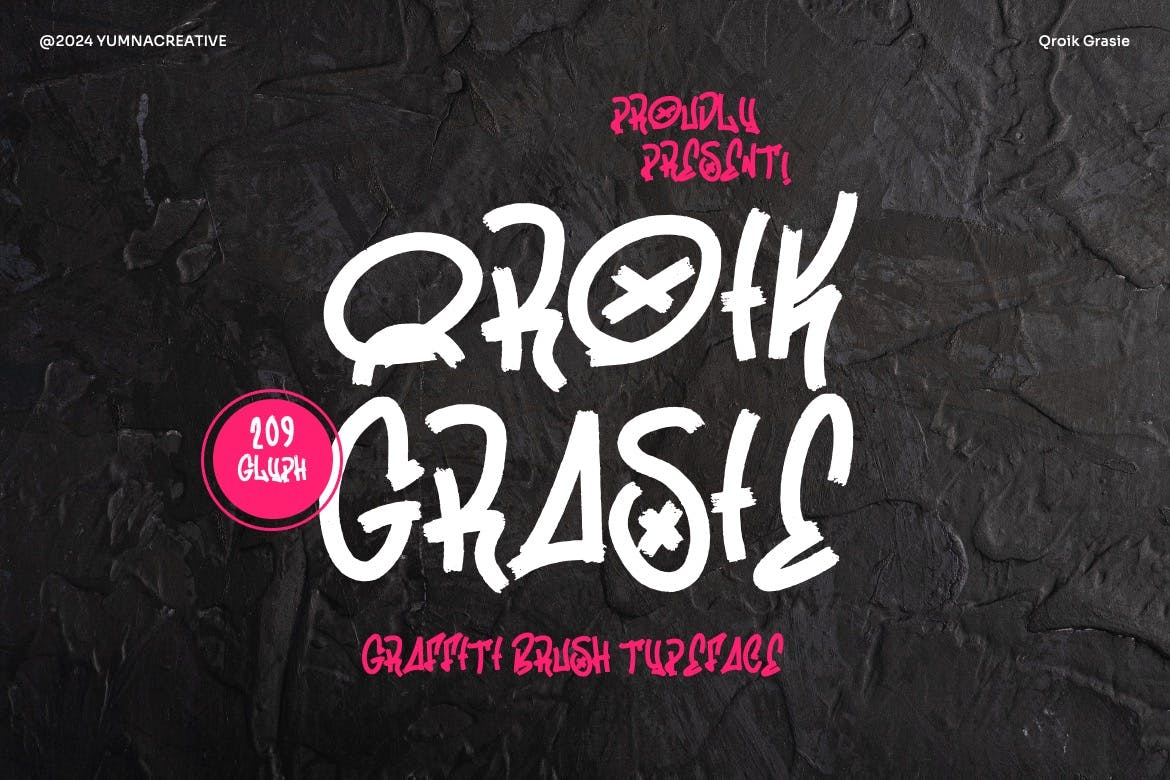
Qroik Grasie - Graffiti Brush Font
Qroik Grasie - Graffiti Brush Font is ideal for urban art projects, street culture branding, hip-hop album covers, rebellious poster campaigns, youth marketing materials, extreme sports graphics, underground event promotion, streetwear design, and bold social media content.
What makes Qroik Grasie - Graffiti Brush Font exciting is its powerful fusion of raw graffiti energy with dynamic brush stroke movement that creates an explosive visual impact. This commanding typeface features authentic paint drips, organic brush textures, and spontaneous letterforms that capture the unrestrained creativity and rebellious spirit of street art culture. The font's fierce attitude and uncompromising character make it perfect for brands that need to communicate edge, authenticity, and underground credibility to audiences who value genuine urban expression and artistic rebellion.
Qroik Grasie - Graffiti Brush Font family includes multiple street-style variations: Regular, Bold, Rough, Drip, Clean, and Shadow versions. Each style maintains the distinctive graffiti brush aesthetic while offering different levels of texture intensity and visual effects, providing designers with comprehensive tools for creating authentic urban typography systems and street-credible design applications.
The Qroik Grasie - Graffiti Brush Font Free Download delivers professional street art typography that combines the spontaneity of graffiti with the fluidity of brush lettering. This font excels in music industry projects, urban fashion brands, extreme sports companies, and youth-oriented campaigns where authentic street credibility directly impacts brand connection with target demographics. The realistic brush effects eliminate the need for additional texture treatments.
Creative professionals choose Qroik Grasie - Graffiti Brush Font for its ability to convey raw energy and artistic rebellion through typography alone. The varied brush strokes and organic paint flow create natural movement and prevent digital uniformity that might compromise street authenticity. Its bold construction ensures maximum impact across all urban environments and applications.
The comprehensive character set includes street-art symbols, decorative elements, and multilingual support that enhances the urban brush aesthetic. Qroik Grasie - Graffiti Brush Font Free Download enables designers to experiment with color layering, creative combinations, and innovative urban applications before purchasing.
Whether used for underground music promotion or mainstream street-inspired marketing, Qroik Grasie - Graffiti Brush Font consistently delivers authentic urban typography that resonates with audiences seeking genuine street culture and dynamic artistic expression.